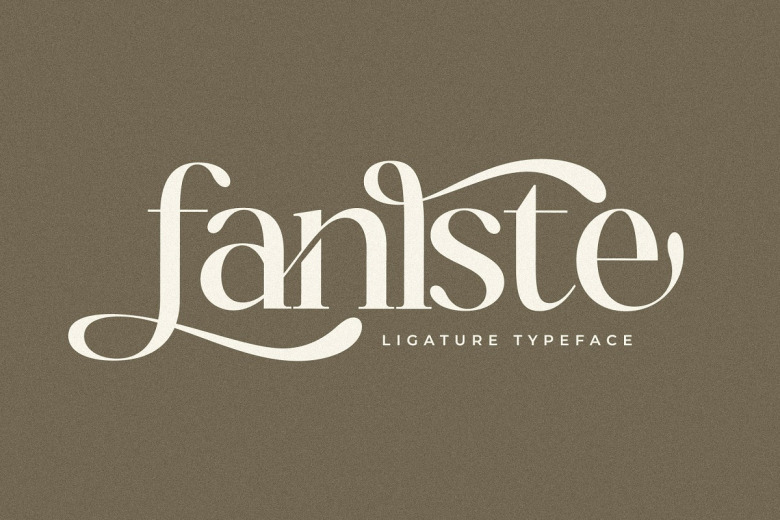
Fanlste Font
Fanlste is a sophisticated, charming slant serif font with fashionable gradients. Created for luxury, elegant, feminine projects. Perfect for producing modern designs, classy business cards, eye-catching designs and website articles.
Fanlste Serif Font